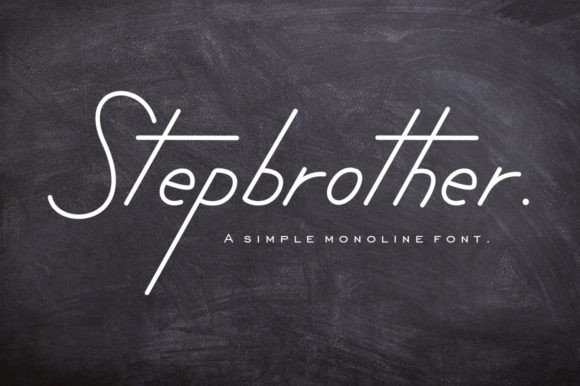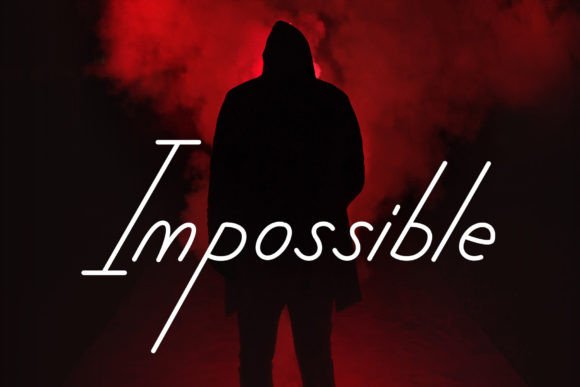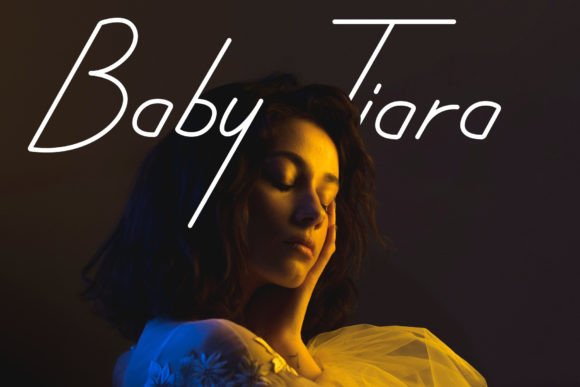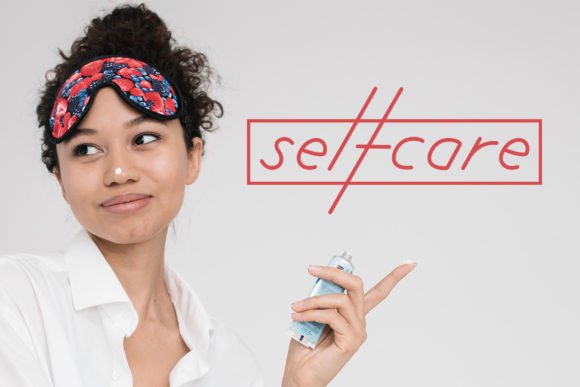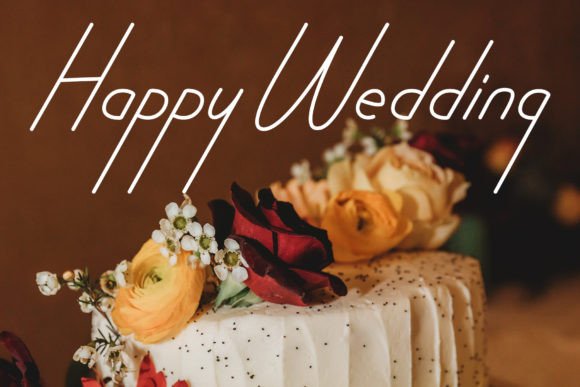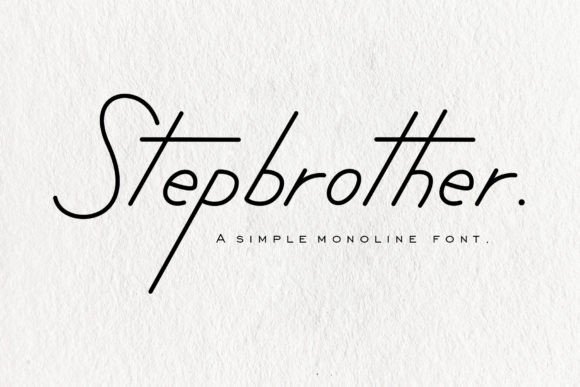
Stepbrother Font
Introducing Stepbrother, an elegant and unique handwritten font that truly stands out. This font is a perfect choice for various applications, including wedding invitations, thank you cards, quotes, greeting cards, logos, business cards, and any other design that calls for a stylish and distinctive touch.
What sets Stepbrother apart is its elegance and individuality. The handwritten style adds a personal and artistic touch, making it well-suited for projects where a stylish and unique appearance is desired. Imagine Stepbrother enhancing your wedding invitations, where it adds a touch of sophistication and charm to the celebration. Picture it on business cards or logos, where it introduces a memorable and stylish visual identity.
The versatility of Stepbrother allows it to shine across different design contexts. Whether used for print or digital media, this font adapts seamlessly, contributing to the visual appeal of your projects. Its elegant and unique design makes Stepbrother a font that brings a touch of sophistication and individuality to your creative endeavors.
Visualize Stepbrother becoming an essential part of your design toolkit, elevating the style and impact of your projects. Envision it on thank you cards, where its elegant appearance adds a gracious and refined touch. The font’s versatility and unique charm make Stepbrother a valuable addition that brings a special and stylish touch to your designs.
In conclusion, Stepbrother is not just a font; it’s an elegant and unique design asset that enhances the beauty of your creative projects. Download it today and experience how it transforms your wedding invitations, logos, and more into expressions of stylish sophistication. Make Stepbrother a cherished addition to your font collection, and let it be the key to unlocking a world of creativity and individuality in your designs!